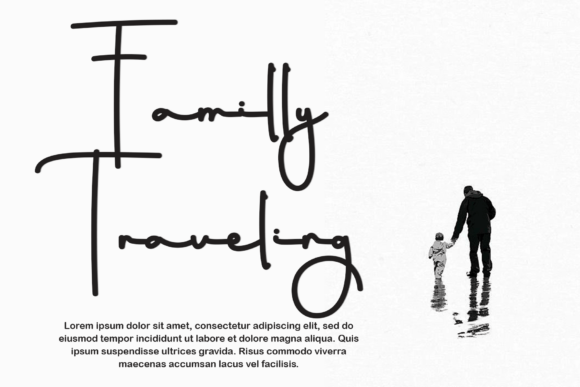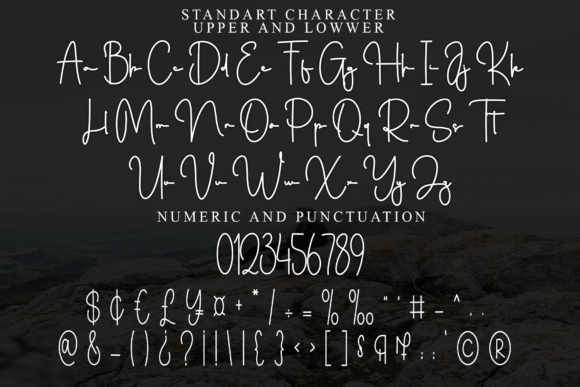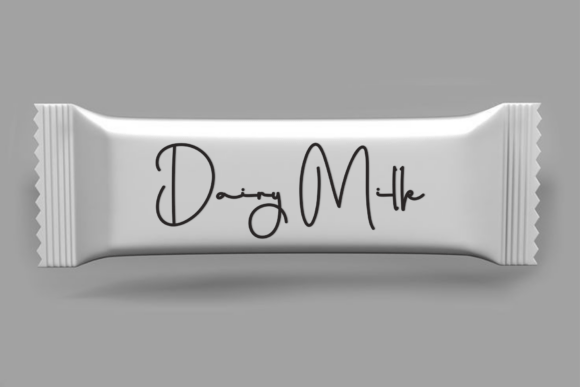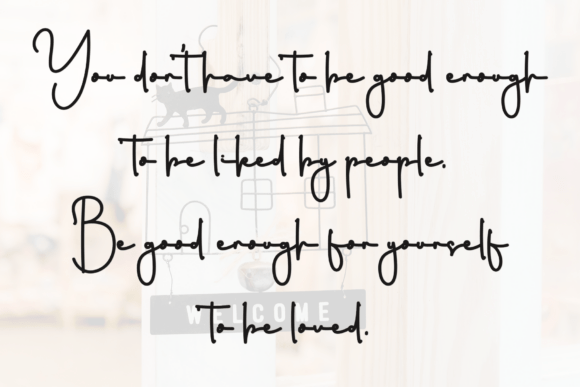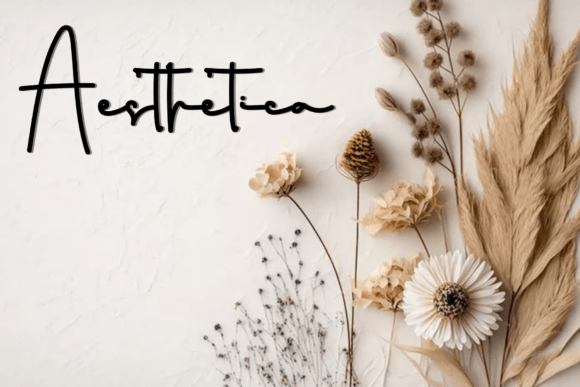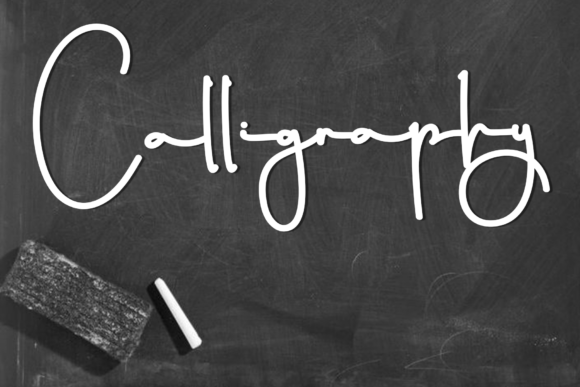
Introducing Good Feeling Font: The Ultimate Holiday Typeface
Are you looking for a font that captures the essence of the holiday season? Do you want to add a touch of magic to your designs and make them stand out? Look no further than Good Feeling Font, a festive and merry typeface that’s perfect for greeting cards, gift tags, and holiday-themed projects.
Good Feeling Font is a decorative typeface that’s designed to bring a cheerful and nostalgic ambiance to your words. With its whimsical flair and enchanting elements, this font is sure to add a touch of wonder to your designs. Whether you’re creating holiday cards, gift tags, or festive posters, Good Feeling Font is the perfect choice.
Good Feeling Font is specifically designed for holiday-themed projects. Its festive and merry design makes it perfect for:
• Greeting cards: Create beautiful and unique holiday cards that will make your loved ones feel special.
• Gift tags: Add a personal touch to your gifts with custom gift tags that feature Good Feeling Font.
• Holiday posters: Create eye-catching posters that will grab attention and spread holiday cheer.
• Social media posts: Add a touch of holiday magic to your social media posts and make them stand out.
Good Feeling Font is PUA (Private Use Area) encoded, which means you can access all of the amazing glyphs and ligatures with ease. This makes it easy to use the font in your designs and projects, without having to worry about complicated installation or setup processes.
Good Feeling Font offers a range of features and benefits that make it the perfect choice for designers and crafters. Some of the key features include:
• Decorative elements: The font features a range of decorative elements, including swashes, flourishes, and ligatures.
• Whimsical design: The font has a whimsical design that’s perfect for holiday-themed projects.
• PUA encoded: The font is PUA encoded, making it easy to access all of the glyphs and ligatures.
Why Choose Good Feeling Font?
There are many fonts to choose from, but Good Feeling Font stands out from the crowd. Here are just a few reasons why:
• Unique design: The font has a unique and festive design that’s perfect for holiday-themed projects.
• High-quality: The font is high-quality and designed to produce stunning results.
• PUA encoded: The font is PUA encoded, making it easy to access all of the glyphs and ligatures.
Tips for Using Good Feeling Font
Here are a few tips for using Good Feeling Font in your designs and projects:
• Experiment with different sizes: The font looks great in a range of sizes, from small to large.
• Combine with other fonts: The font pairs well with other fonts, so feel free to experiment with different combinations.
• Use the decorative elements: The font features a range of decorative elements, including swashes, flourishes, and ligatures. Use these to add a touch of magic to your designs.
Good Feeling Font is a festive and merry typeface that’s perfect for holiday-themed projects. With its decorative elements and whimsical flair, it adds a touch of enchantment to your designs. Whether you’re creating greeting cards, gift tags, or holiday posters, Good Feeling Font is the perfect choice. So why wait? Download Good Feeling Font today and let your typography shine with the magic of this beautiful font!